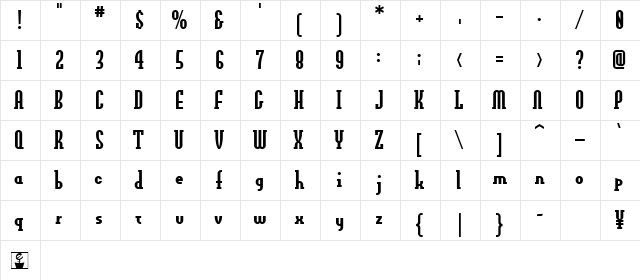
OLDNEW Axis
Design Context for OLDNEW Typeface
OLDNEW offers clean, dependable letterforms without strong stylistic allegiance, making it a practical choice for designers who need flexibility.
Pro Tip: Pair OLDNEW with a font of contrasting weight or personality to build a more expressive typographic hierarchy.